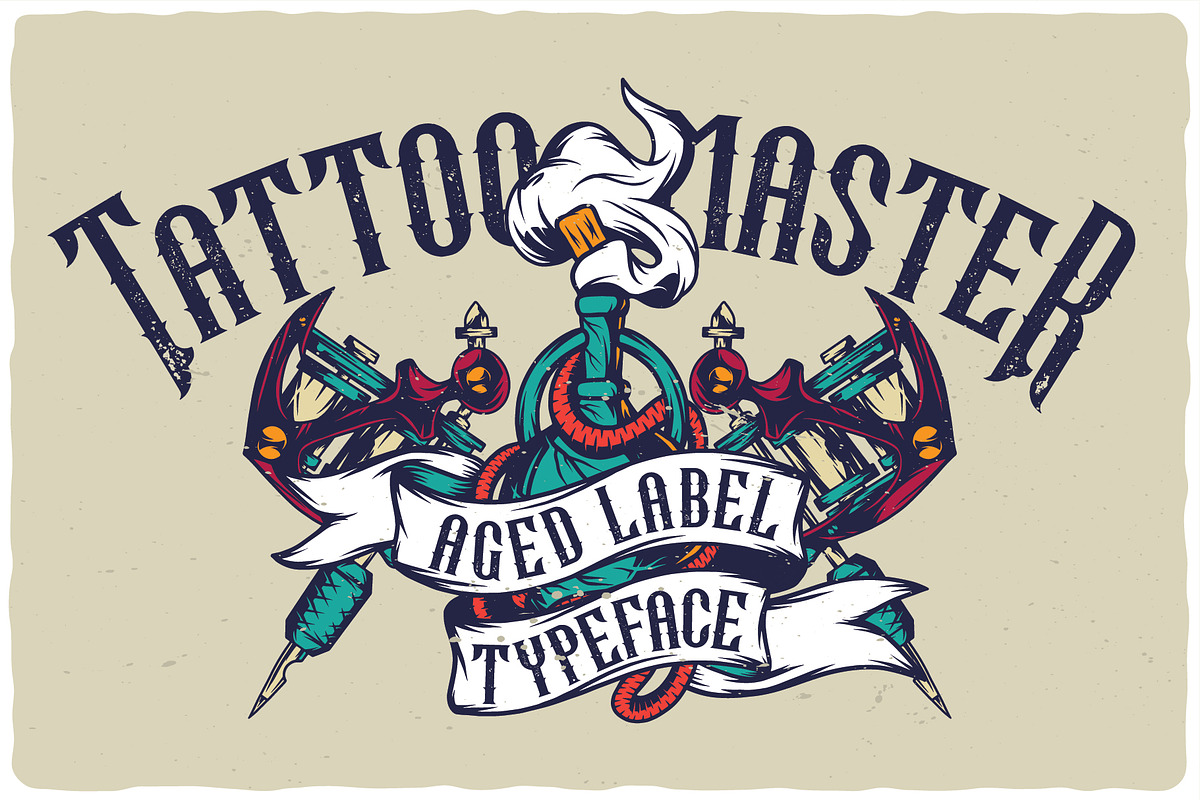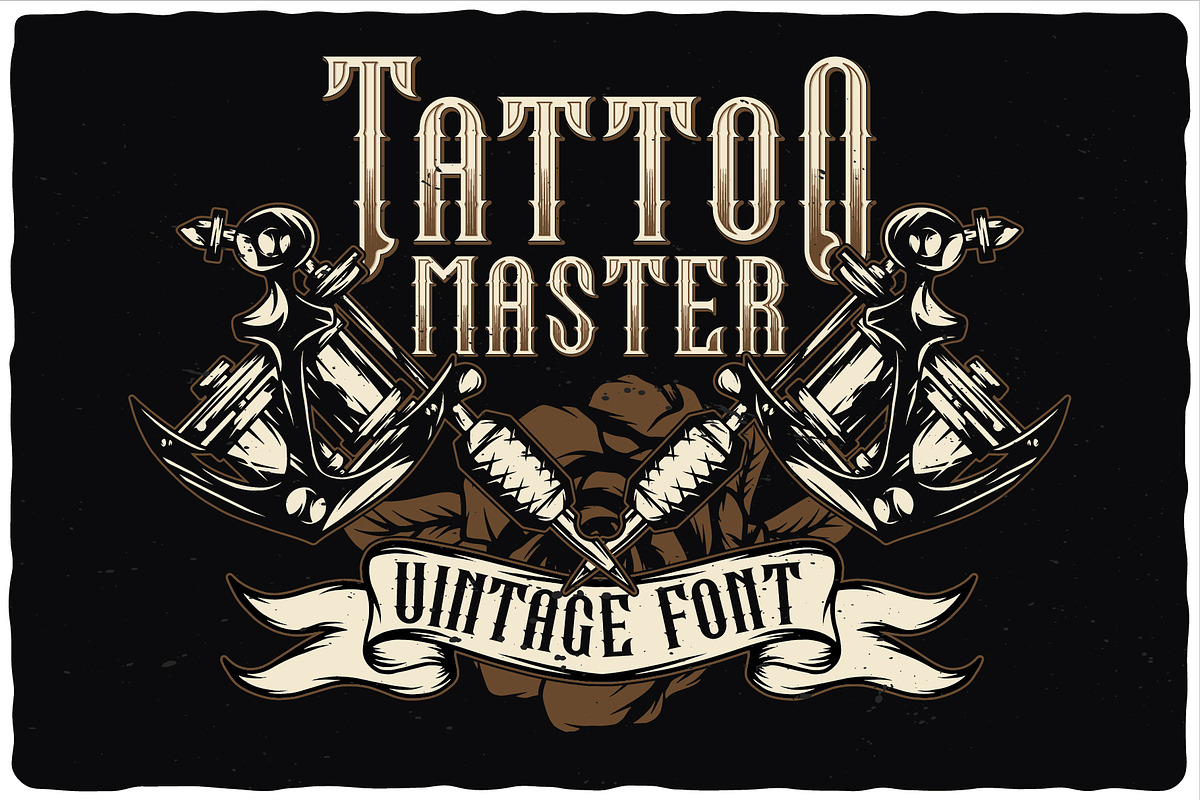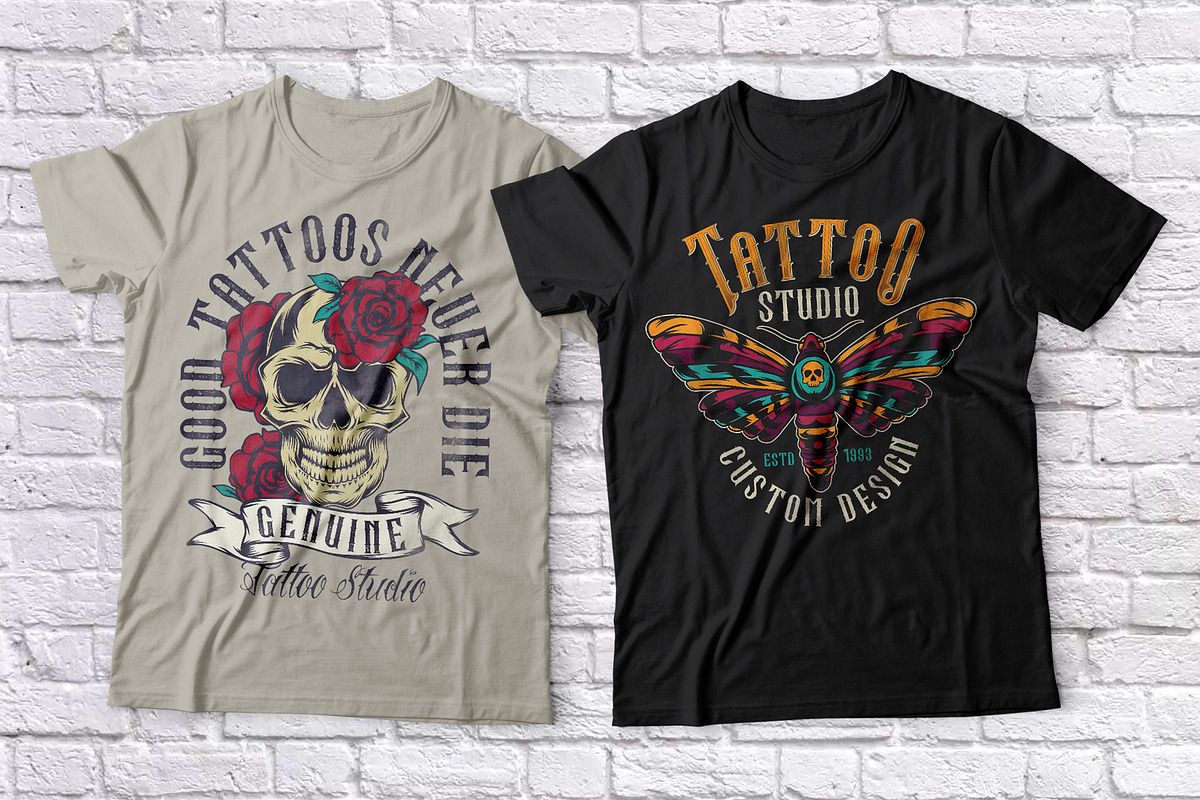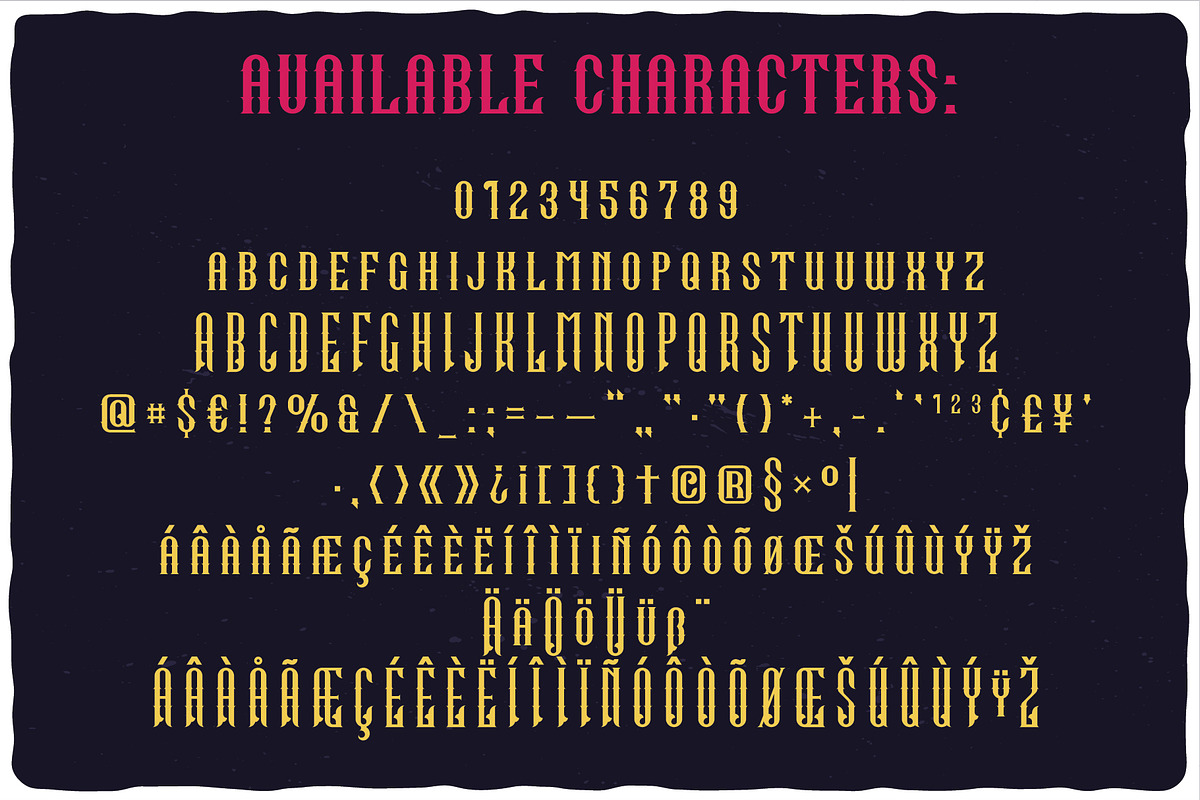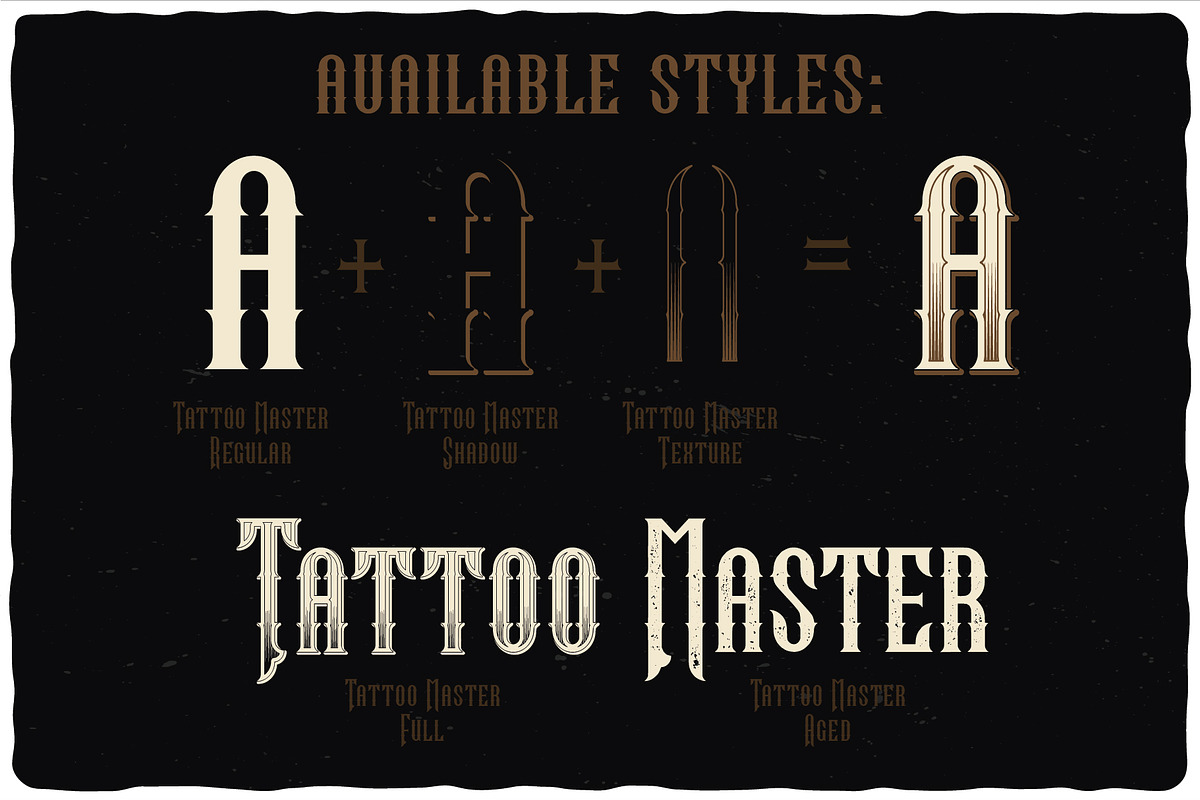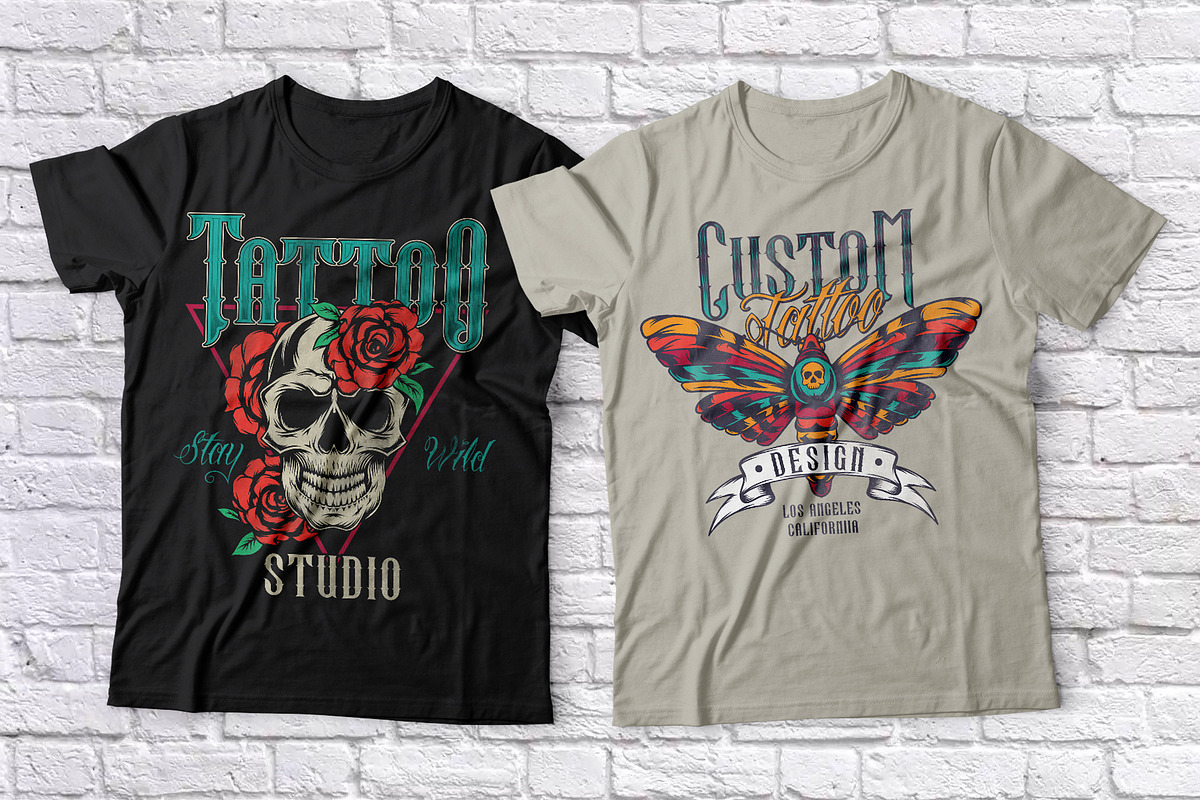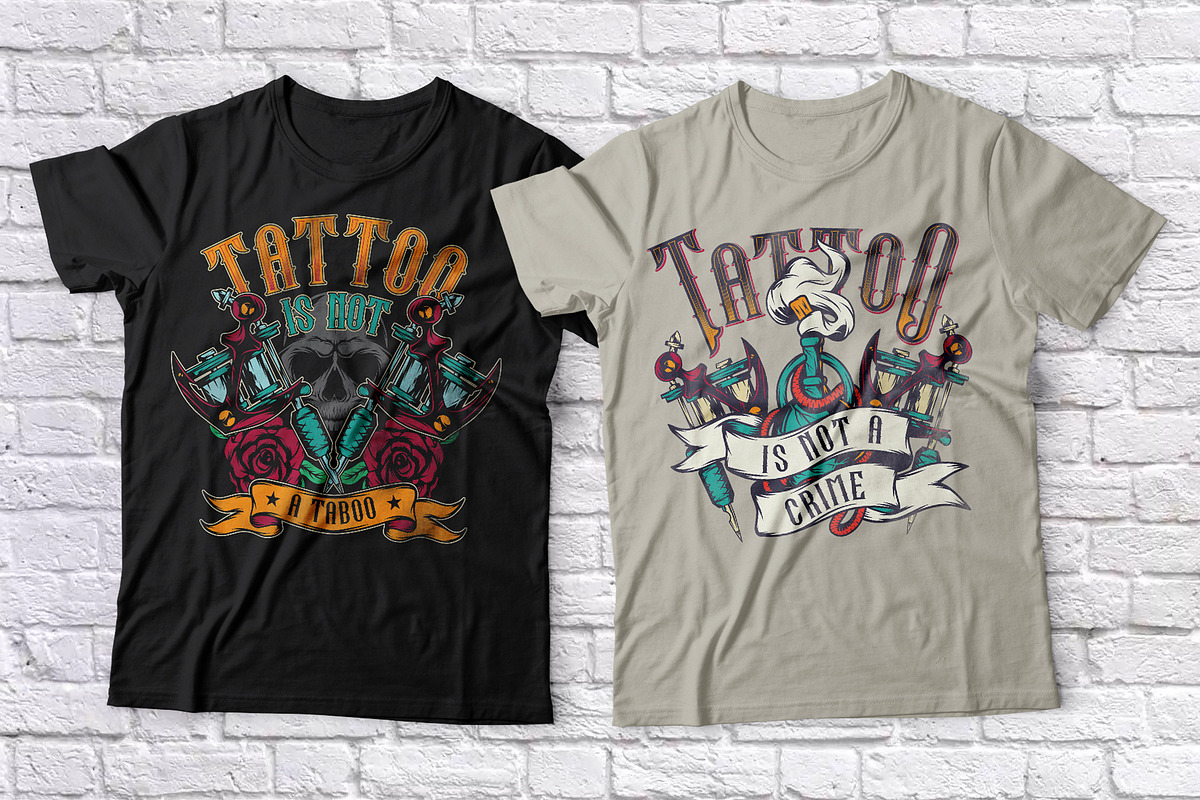
Tattoo Master label font
Introducing a vintage look label font named "Tattoo Master". This family includes five styles - Regular, Texture, Shadow, Full and Aged. Samples you can find on the preview. This font will good viewed on any retro design like poster, t-shirt, label, logo etc.
- This family includes five styles - Regular, Texture, Shadow, Full and Aged.